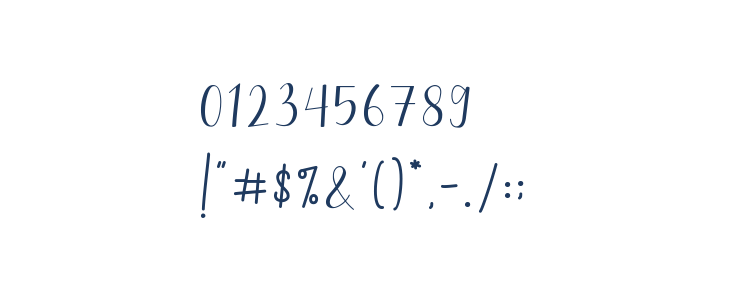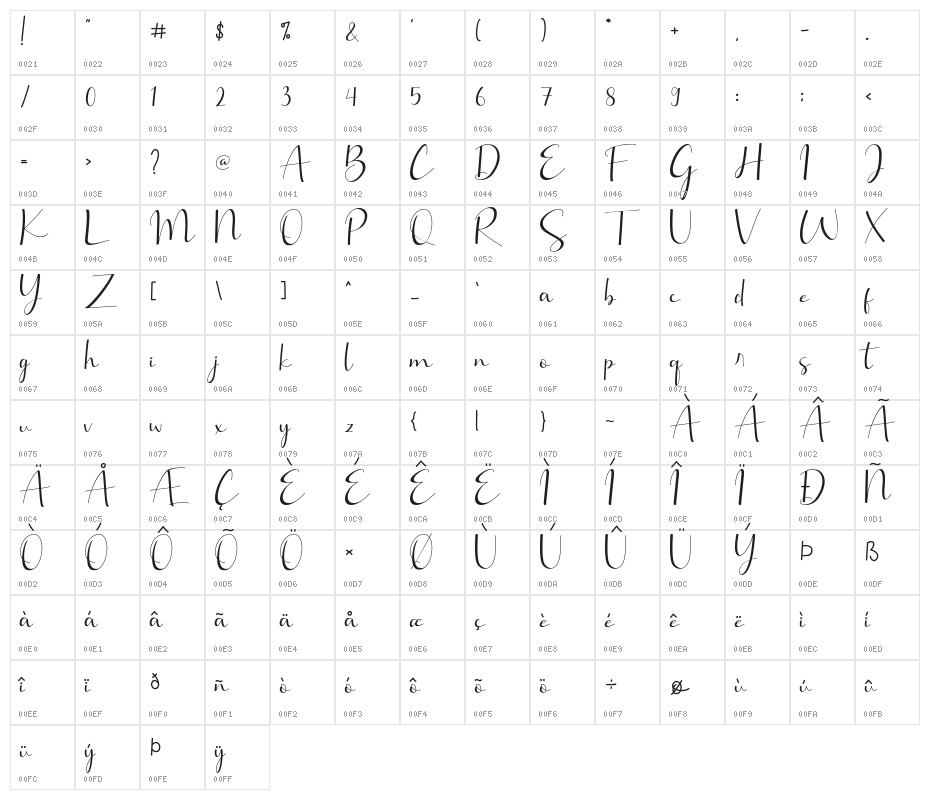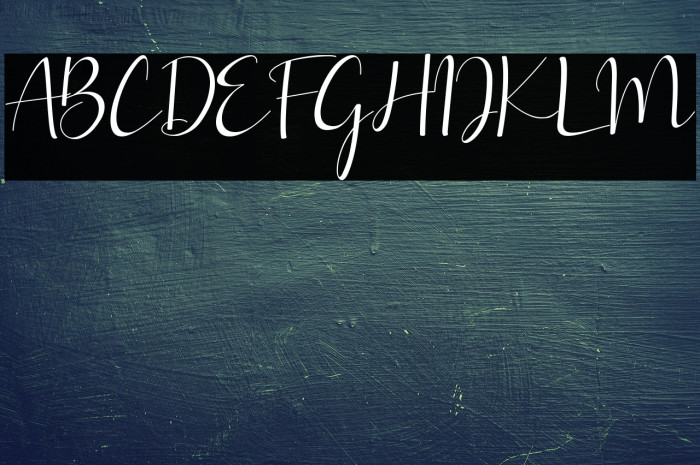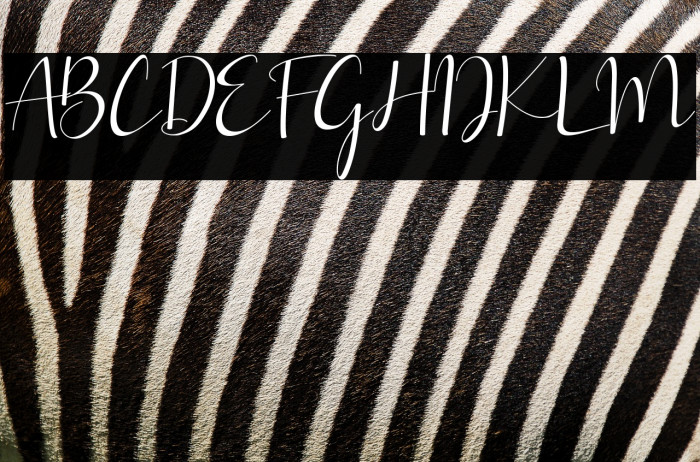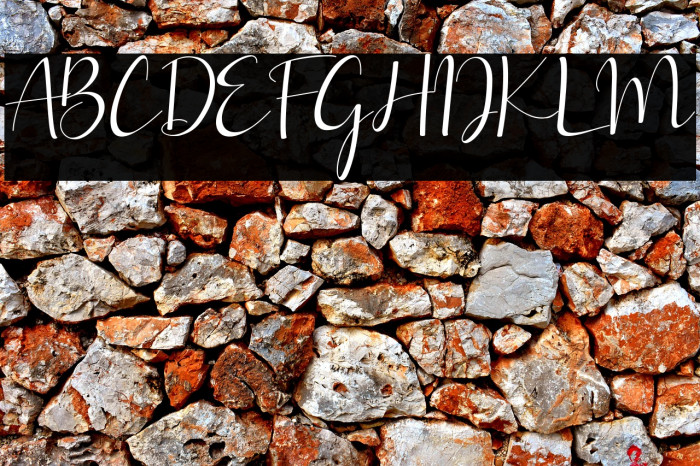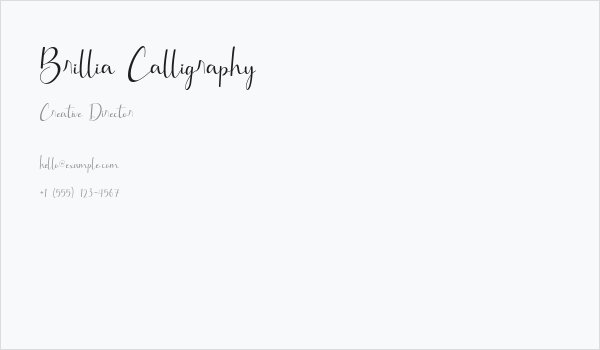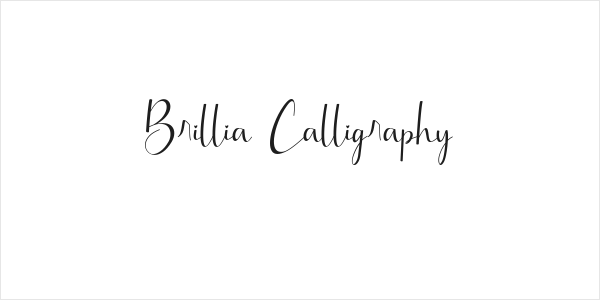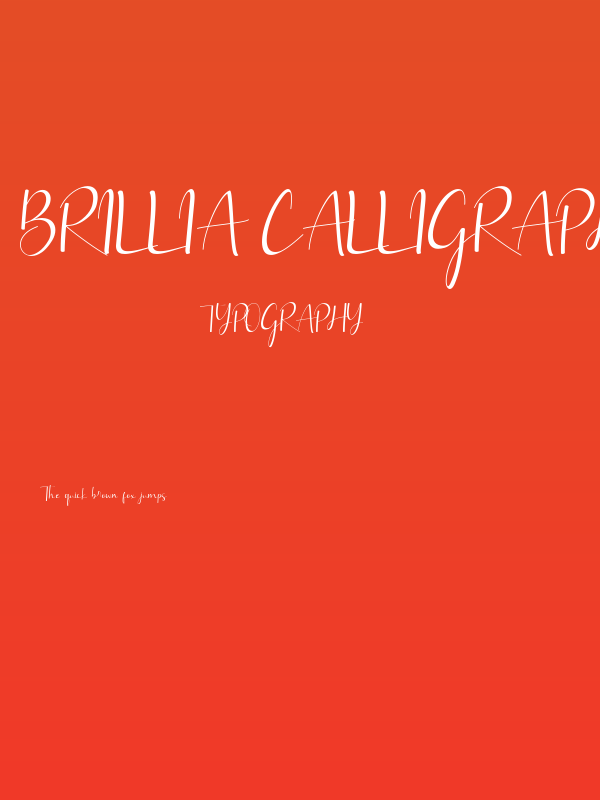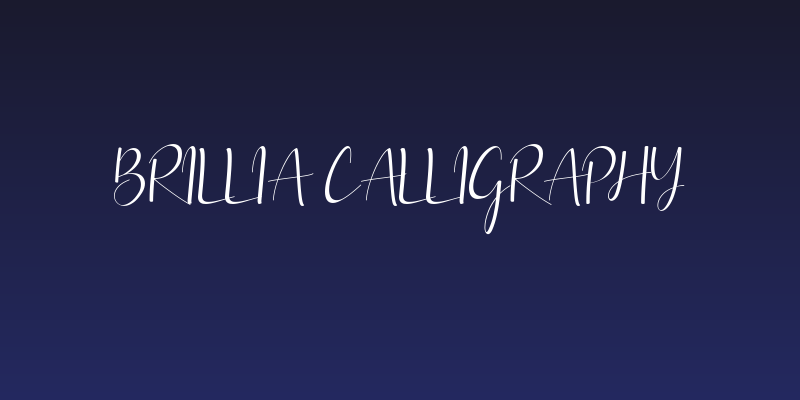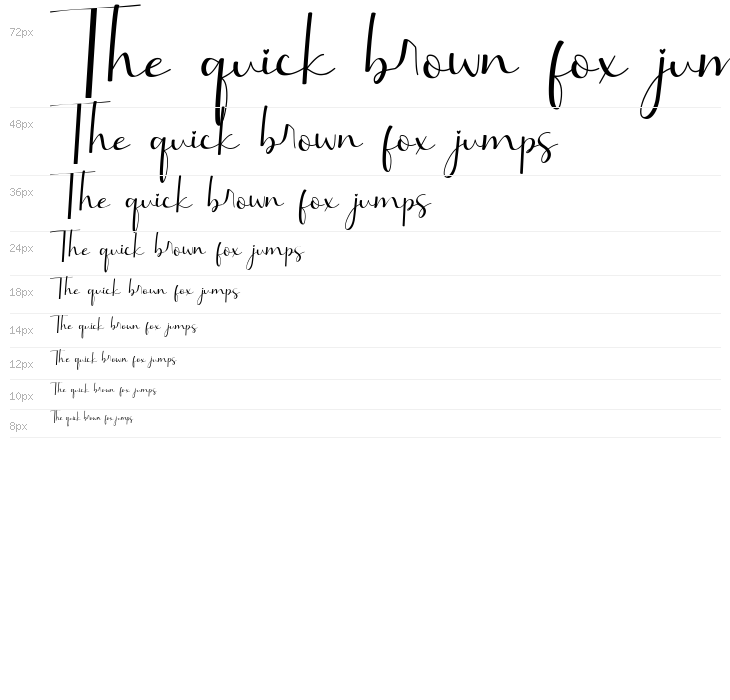
Brillia Calligraphy Font
Brillia Calligraphy Description
This elegant calligraphy font features a flowing, cursive style with a modern twist. The uppercase letters are characterized by their tall, slender forms and graceful loops, while the lowercase letters maintain a consistent fluidity and charm. The numerals are distinct and easy to read, complementing the overall aesthetic. Special characters are thoughtfully designed, adding to the font's versatility. The strokes vary in thickness, providing a dynamic and engaging appearance. This font exudes sophistication and creativity, making it ideal for projects that require a touch of elegance.